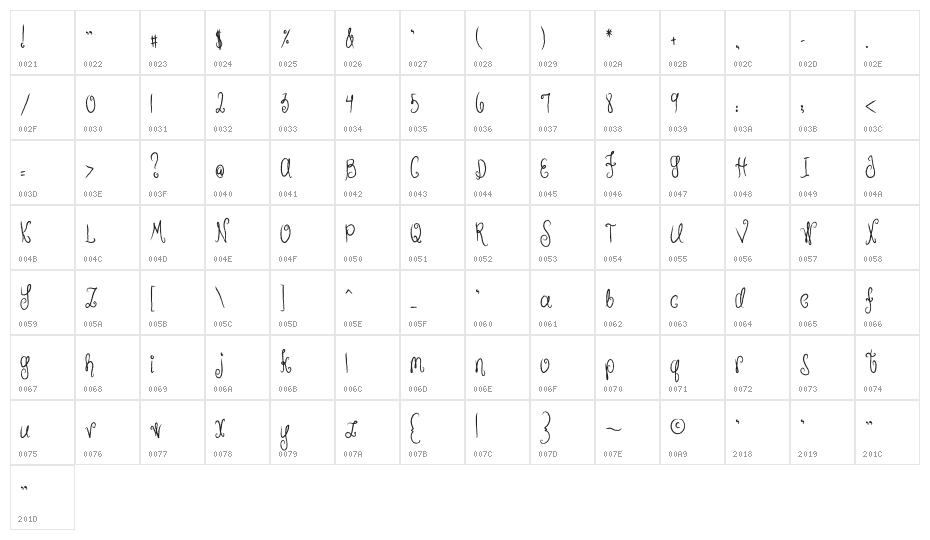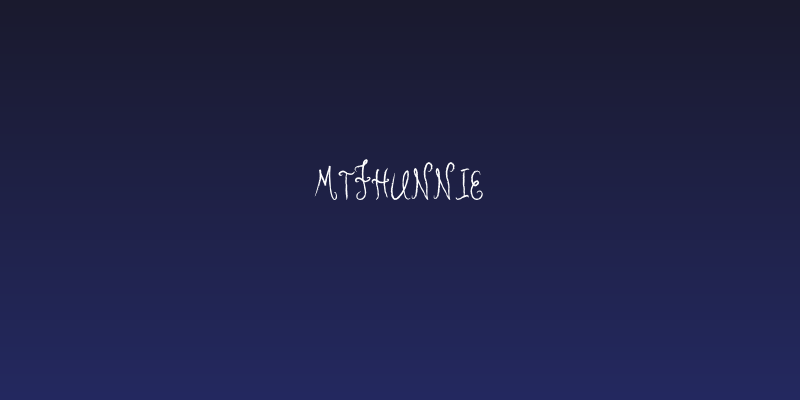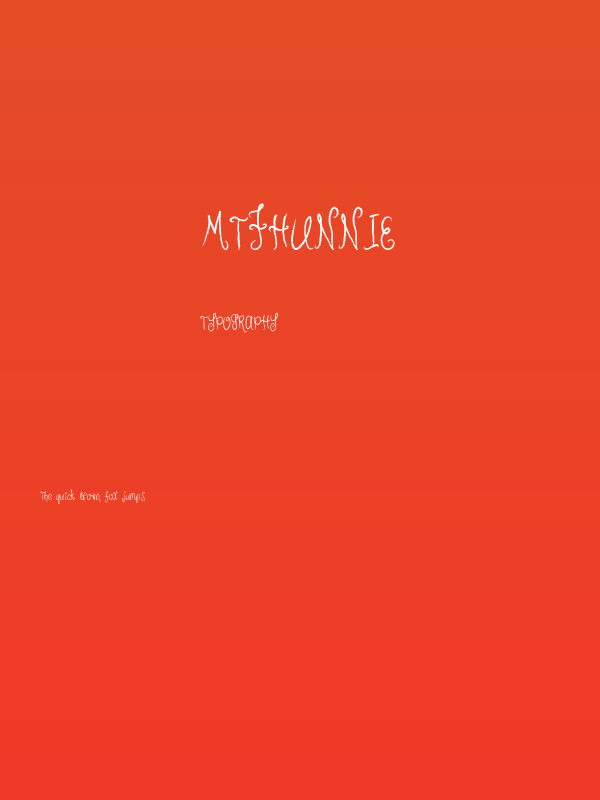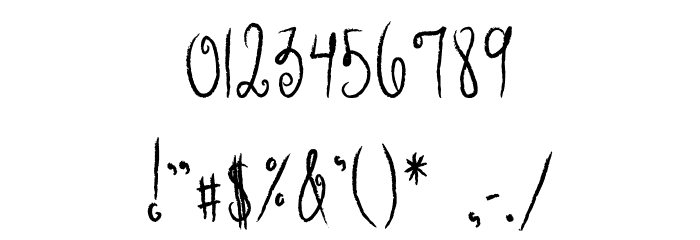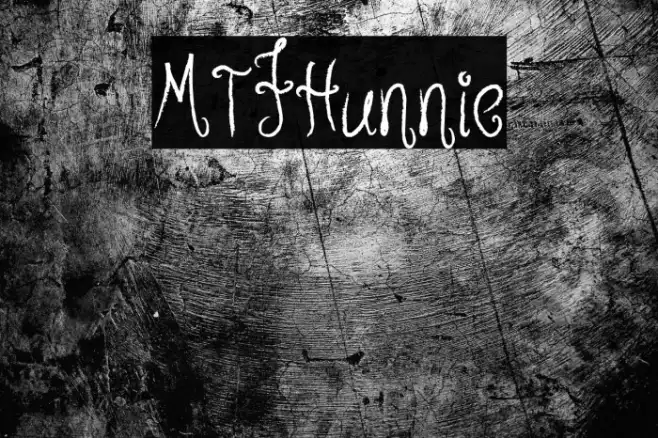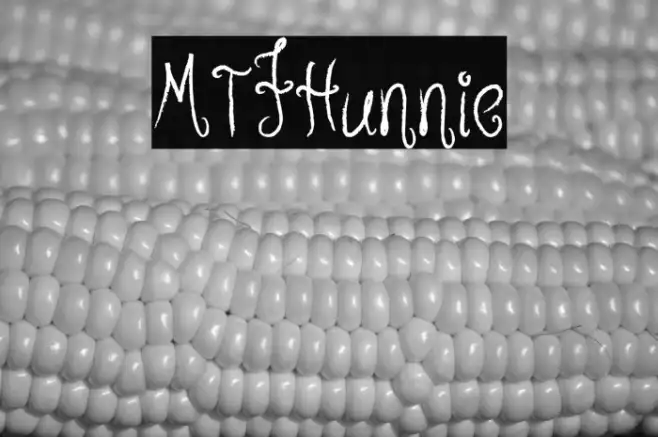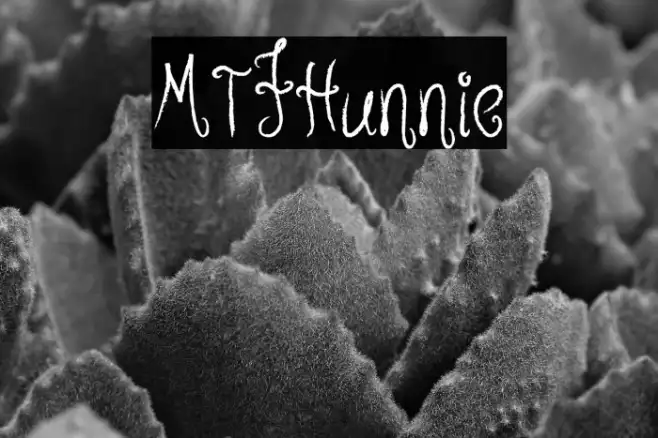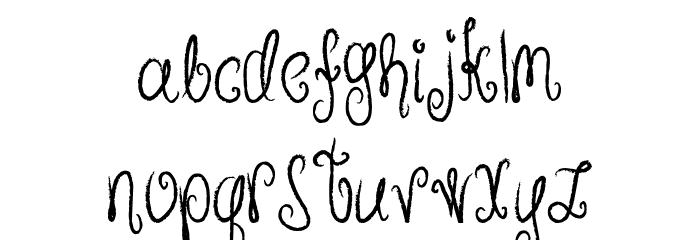
MTFHunnie Font
MTFHunnie Description
This font features a whimsical and playful script style, characterized by its curly and looping letterforms. Each character exhibits a hand-drawn quality, with varying stroke thickness that adds a dynamic and lively feel. The uppercase letters are particularly ornate, with exaggerated curves and flourishes, while the lowercase letters maintain a consistent flow and rhythm. The numbers and special characters are equally expressive, maintaining the font's overall playful aesthetic. This font is ideal for projects that require a touch of creativity and fun, such as invitations, greeting cards, or children's book covers.
MTFHUNNIE UPPERCASE
MTFHUNNIE LOWERCASE
MTFHUNNIE OTHER CHARS